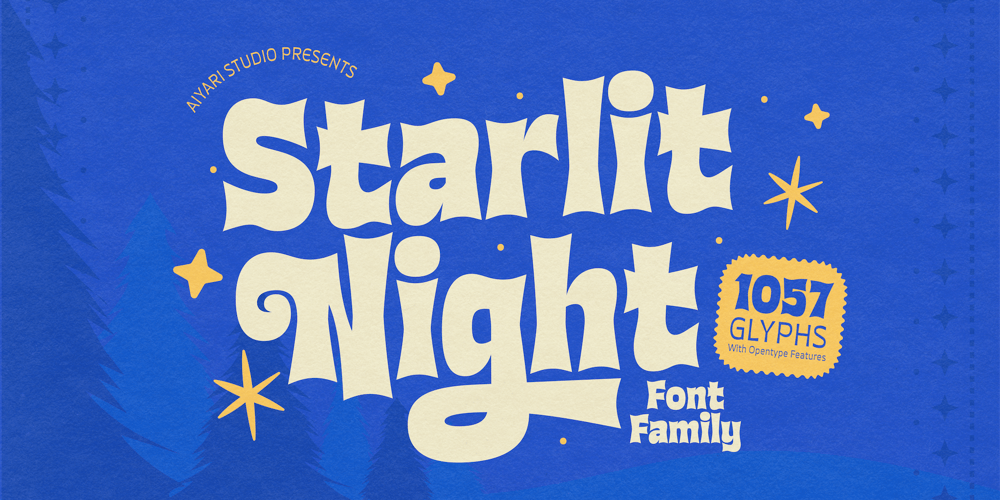
Ayr Starlit Night
Ayr Starlit Night font
Ayr Starlit Night Font Family was designed by Ricky Rinaldi and published by Aiyari. Ayr Starlit Night contains 2 styles and family package options. inspire by 60s-70s lettering, Starlit Night typeface seamlessly blends nostalgia with a modern aesthetic. This typeface features distinctive flare serifs, enhanced with humanist letterforms for a warm, approachable feel. The retro aesthetic of Starlit Night can be applied to a variety of contemporary settings, while remaining fresh and versatile.Starlit Night best uses for headings, invitation, Logo type, quotes, apparel design, flyer, poster, greeting cards, product packaging, book cover, printed quotes, cover album, movie, etc